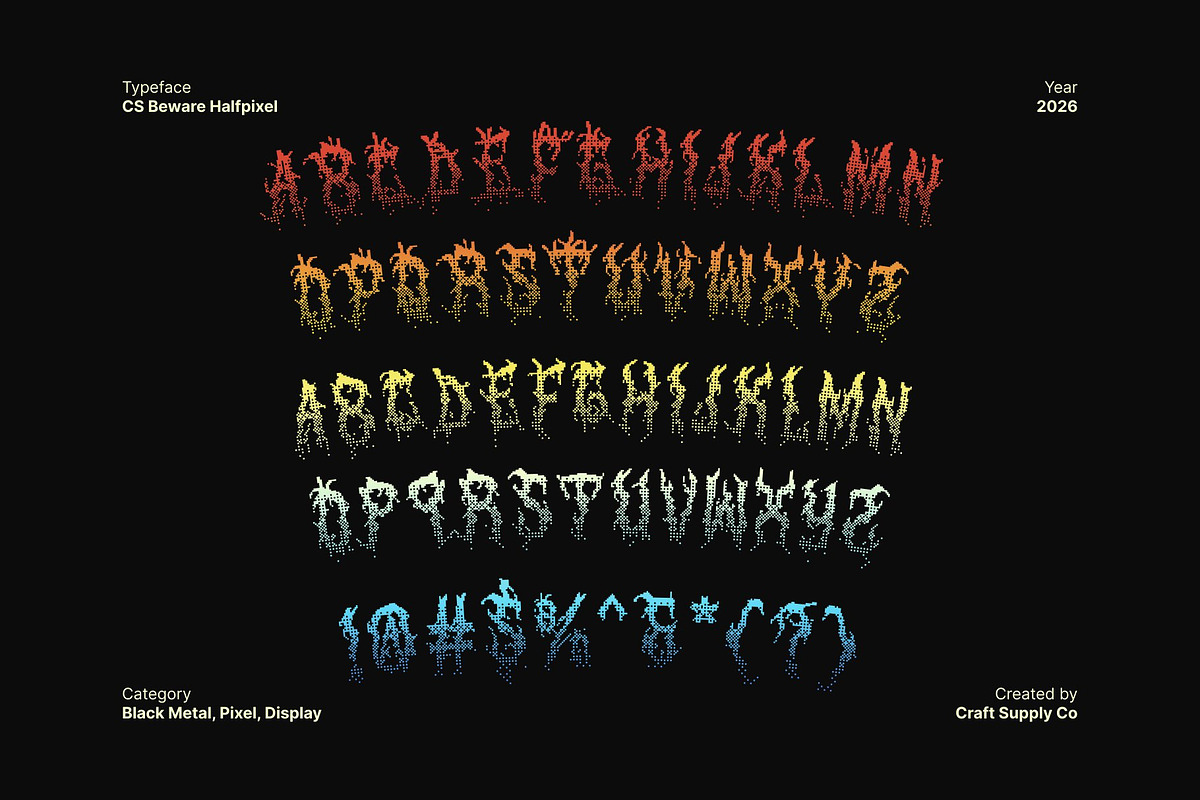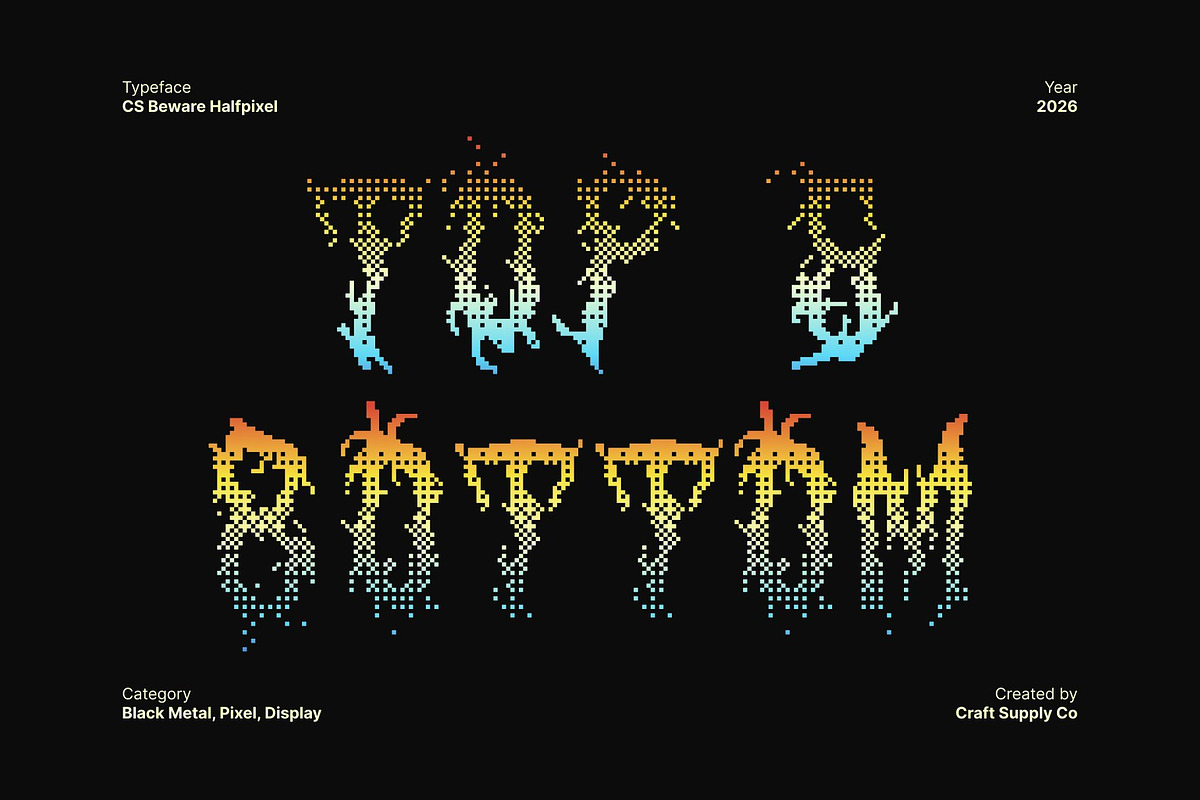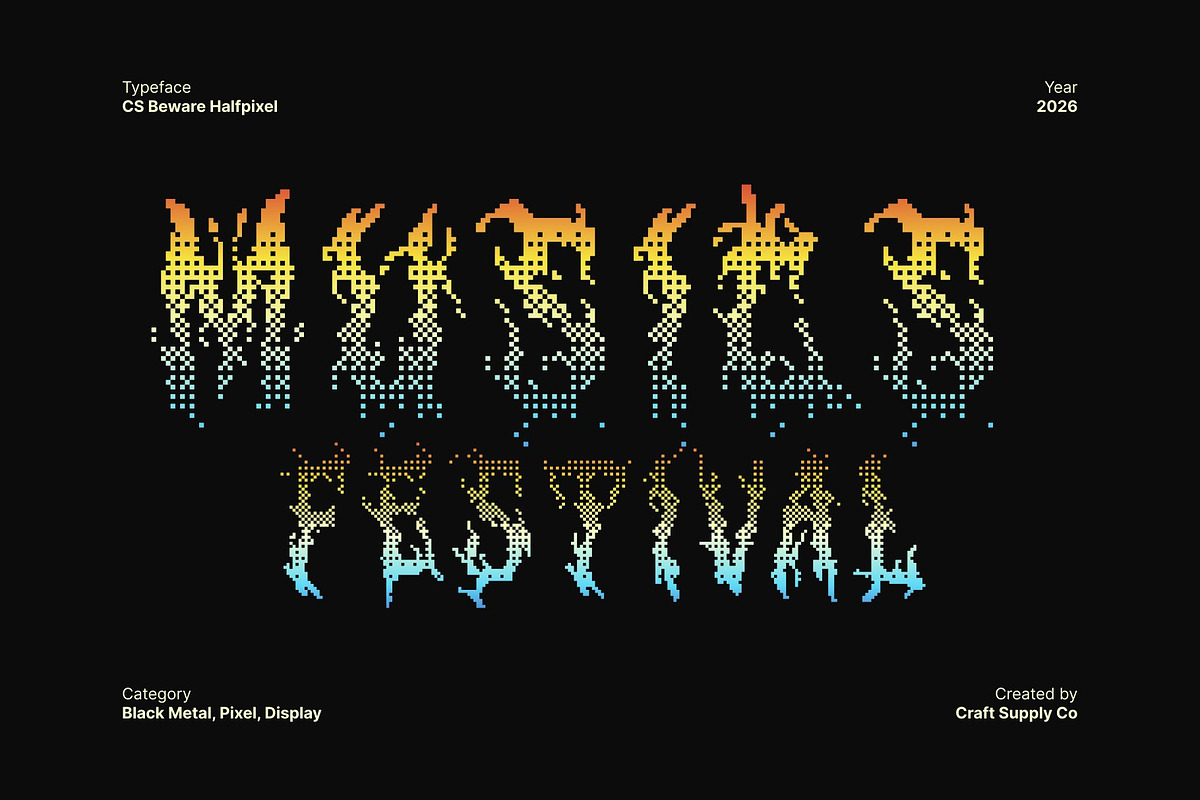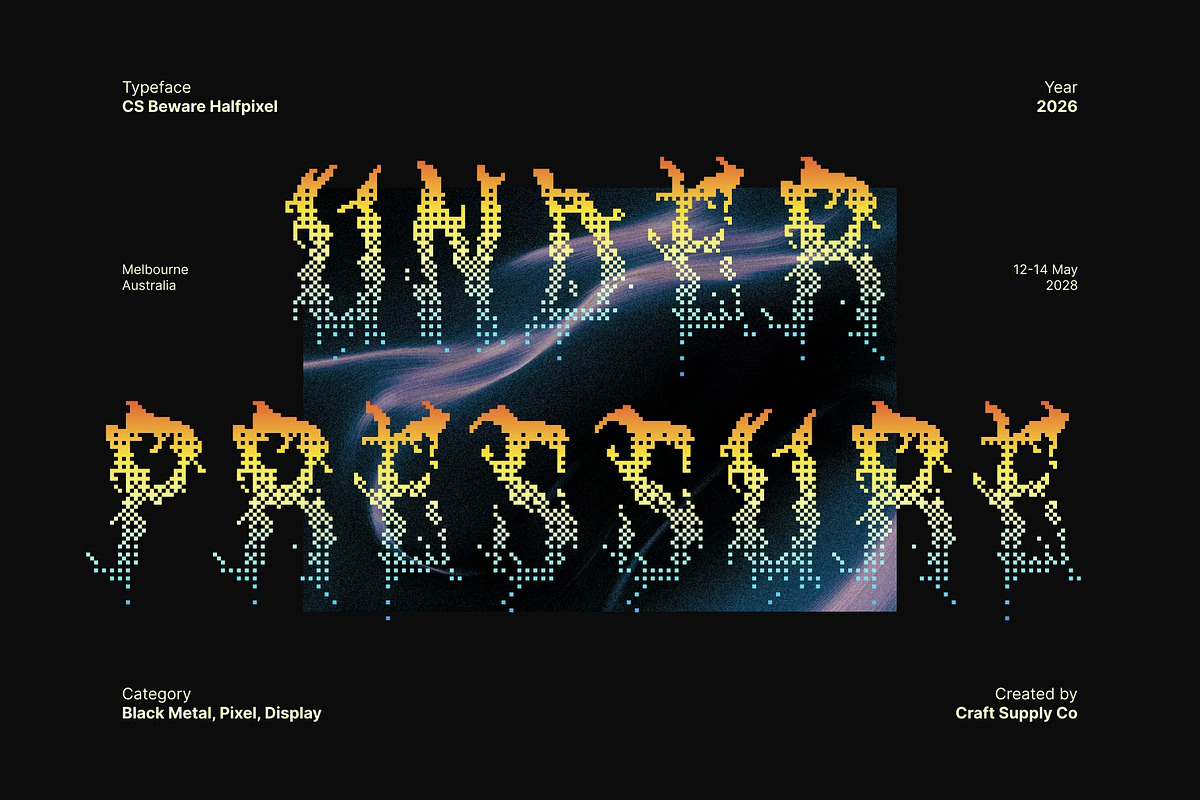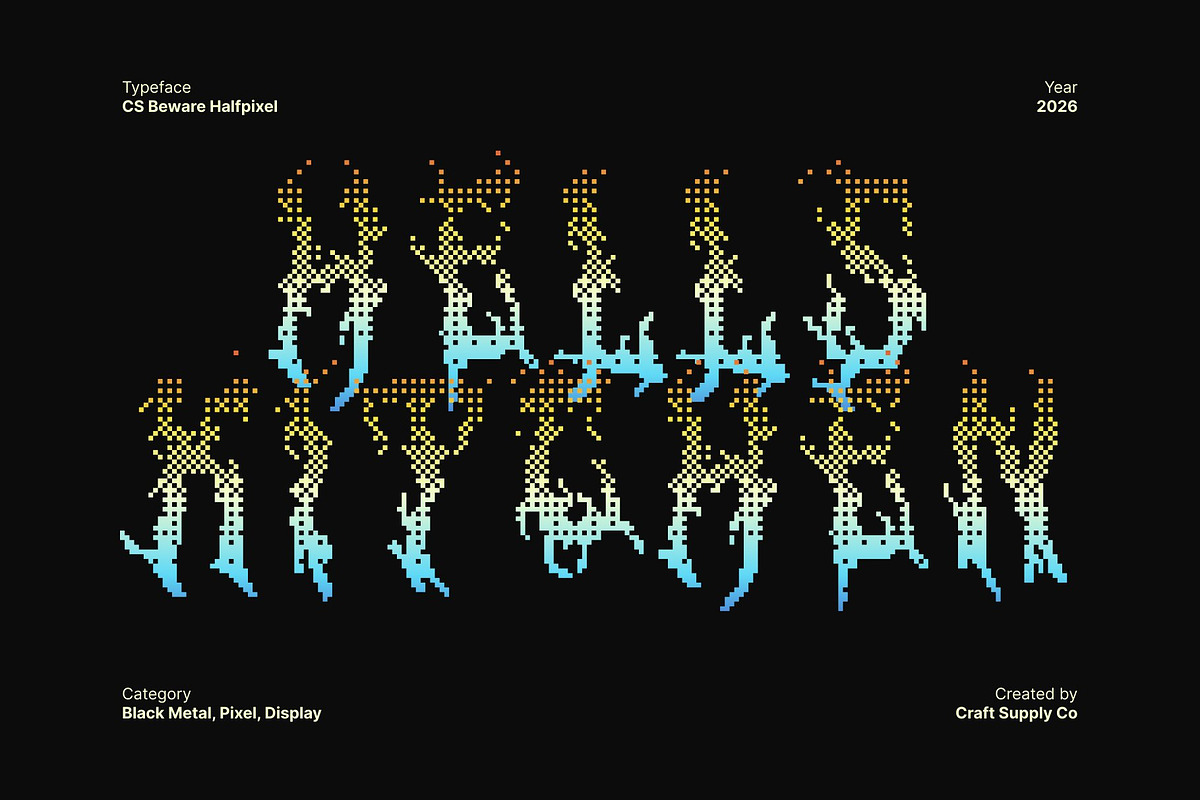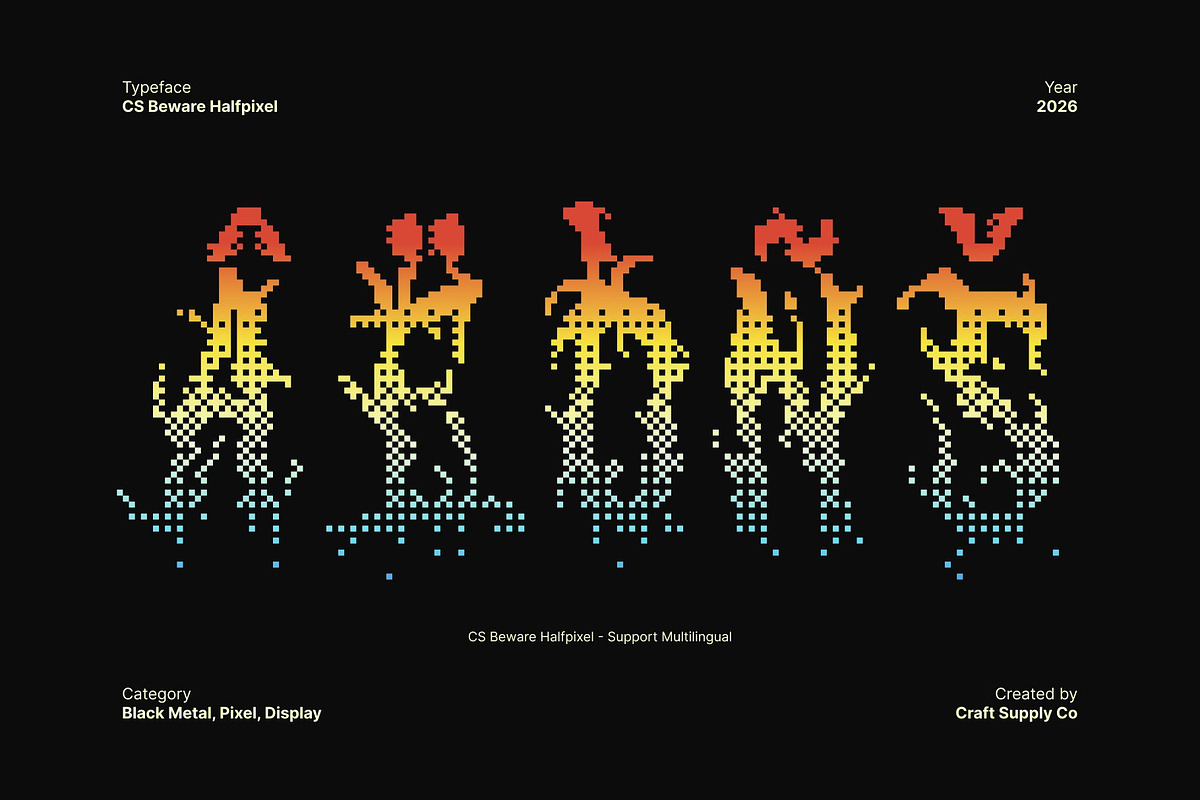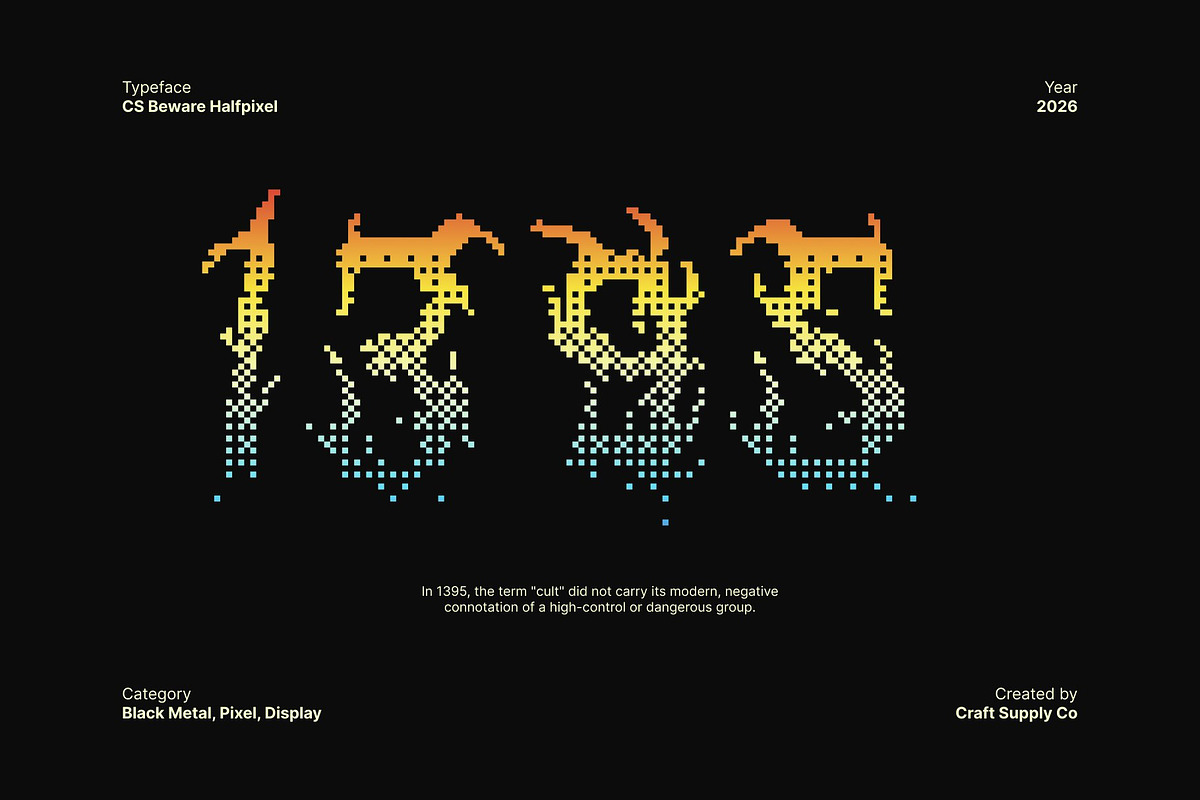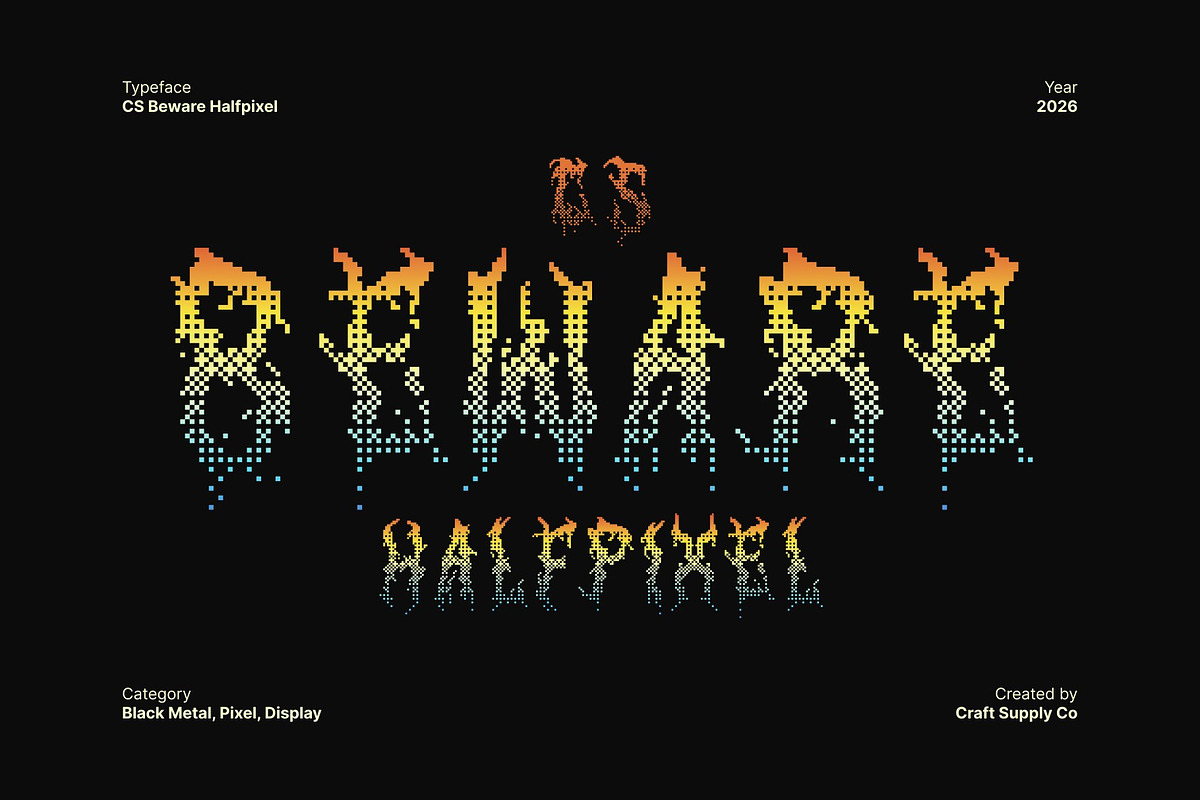
CS Beware Halfpixel
CS Beware Halfpixel – Black Metal Display Font
Unleashing Dark Rebellion with Digital Texture This is a bold display typeface inspired by the intense, dark aesthetics of black metal music and culture. Designed to embody rebellion and raw power, the font features sharp, angular letterforms with jagged edges and intricate detailing. Its aggressive character captures the chaotic energy and underground spirit of extreme music visuals.
Fierce Forms for Maximum Impact Every character in this font is crafted to command attention. The distorted shapes and spiked details create an anarchic, high-energy look that feels loud, dangerous, and unapologetic. This font is perfectly suited for music posters, album covers, merchandise, and alternative branding that demand a strong and confrontational visual presence.
Halfpixel Finish for a Modern Retro Edge The halfpixel style introduces a subtle digital texture that softens the edges without losing the font’s brutal personality. Through gentle anti-aliasing, the letterforms gain a smoother appearance than traditional pixel fonts while maintaining a retro digital feel. This fusion of black metal aggression and digital refinement creates a unique aesthetic that feels both raw and contemporary.
Perfect for Dark and Alternative Design From extreme music artwork and horror visuals to edgy branding and experimental typography, this font brings a powerful and unforgettable voice. It’s the ideal choice for designers who want to combine underground intensity with a modern digital twist.